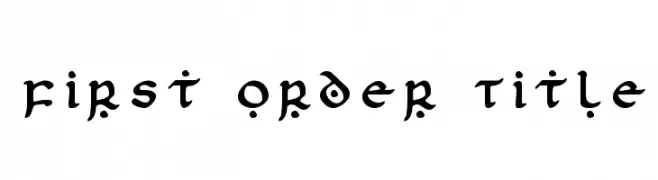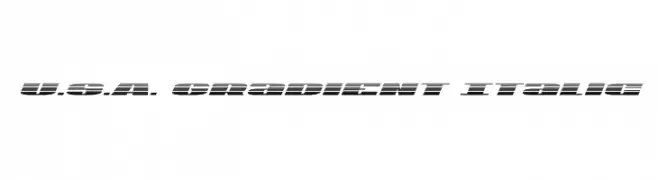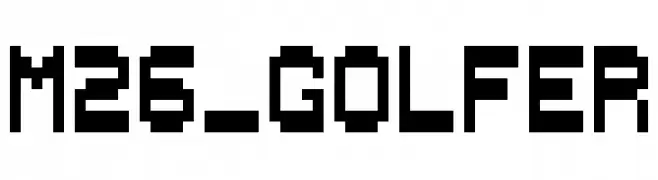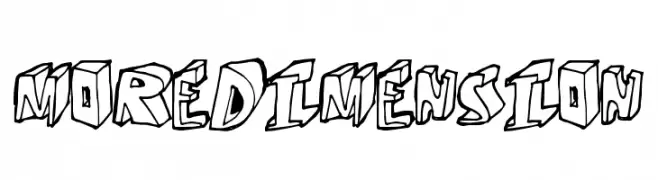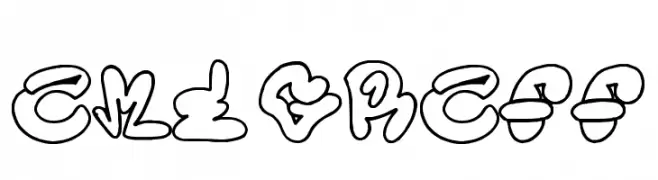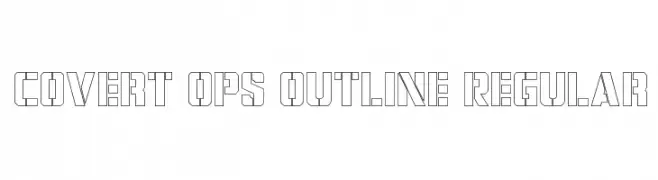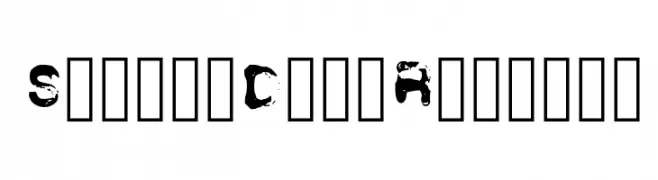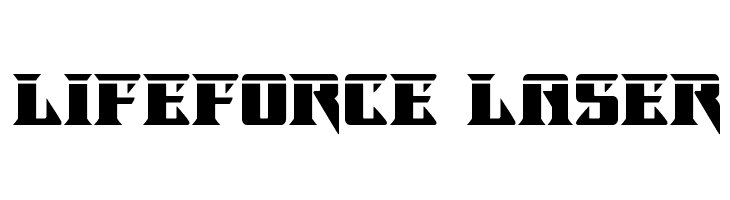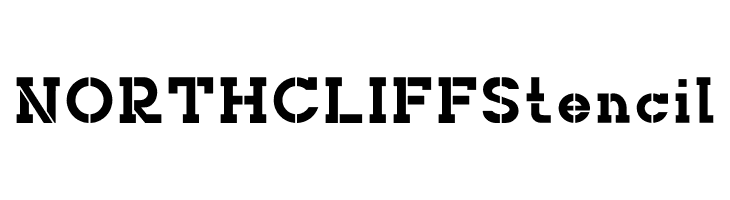
A whimsical and artistic font with decorative elements and bold strokes.
A modern, italic font with a gradient line effect, emphasizing speed and movement.
A bold, playful handwritten font with a casual and dynamic style.
A bold, pixelated font with a retro digital style.
A bold, three-dimensional font with a playful and dynamic style.
A bold, graffiti-inspired font with thick, rounded outlines and a playful urban style.
A bold, geometric outline font with a tactical aesthetic.
A playful, hand-drawn font with bold, rounded characters.
A decorative blackletter font with intricate, sharp edges and a medieval aesthetic.
A bold, distressed font with a grunge aesthetic.